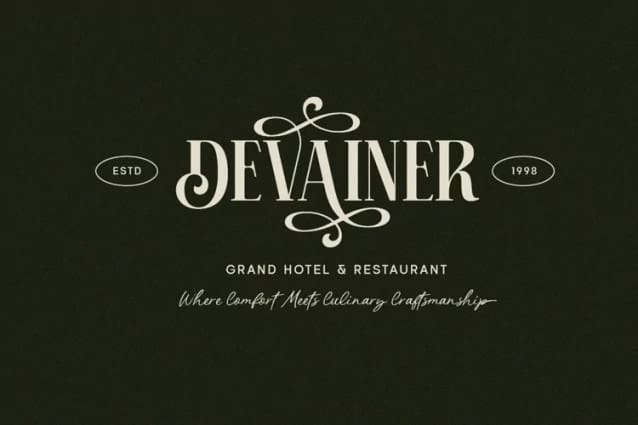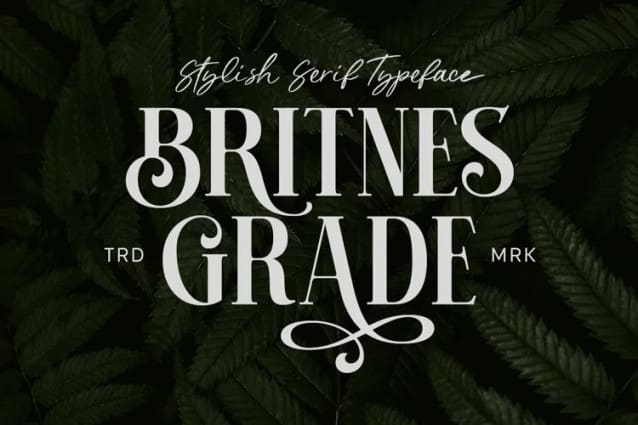
Britnes Grade Font
Britnes Grade Font – A Stylish Serif. he clean and neat of a serif combined with the swirl swashes makes this font one of a kind!This font perfectly made to be applied especially in logo, and the other various formal forms such as invitations, labels, logos, magazines, books, greeting / wedding cards, packaging, fashion, make up, stationery, novels, labels or any type of advertising purpose.